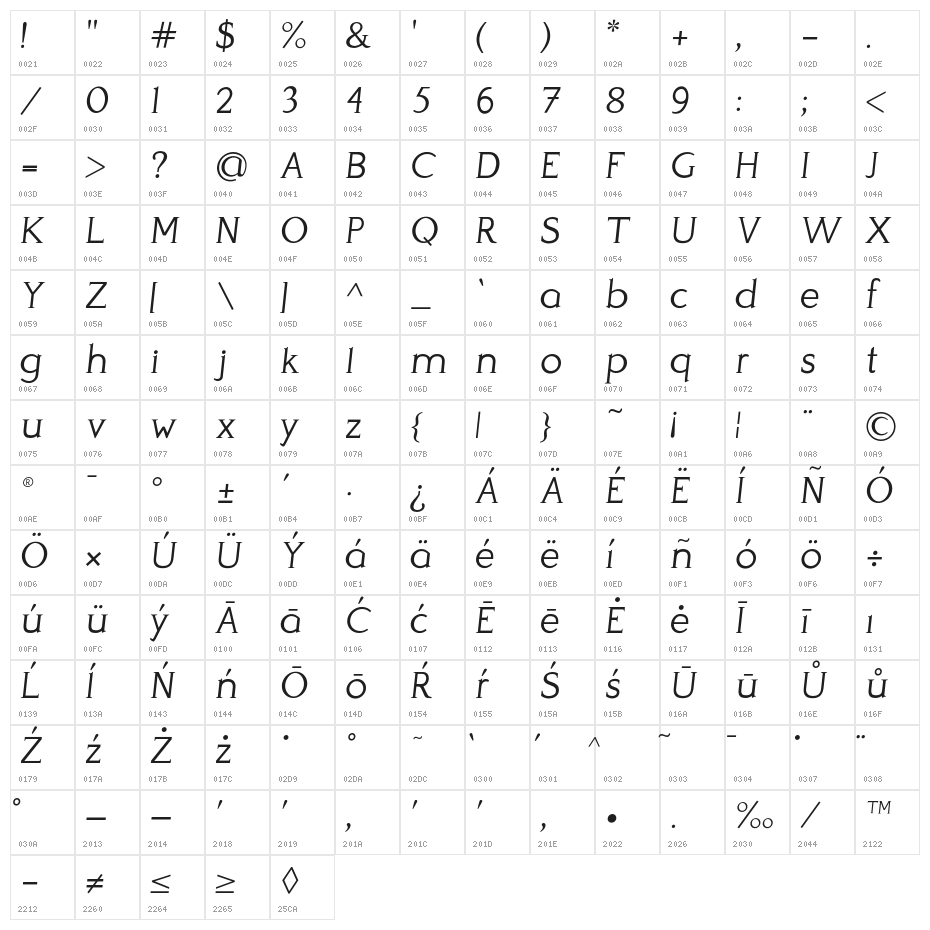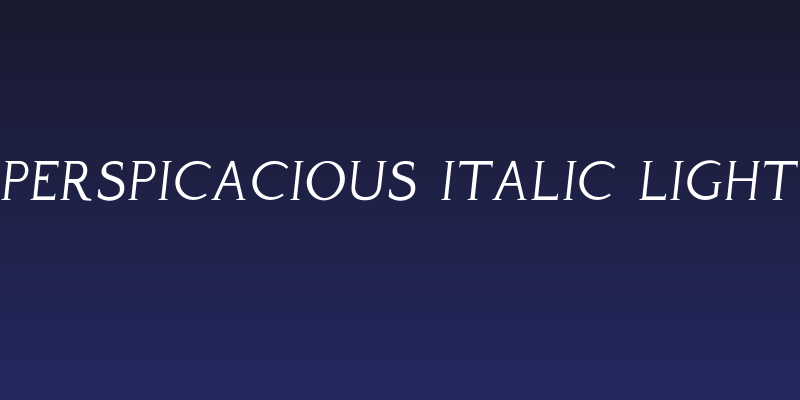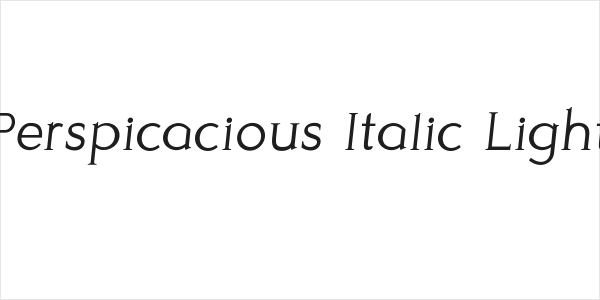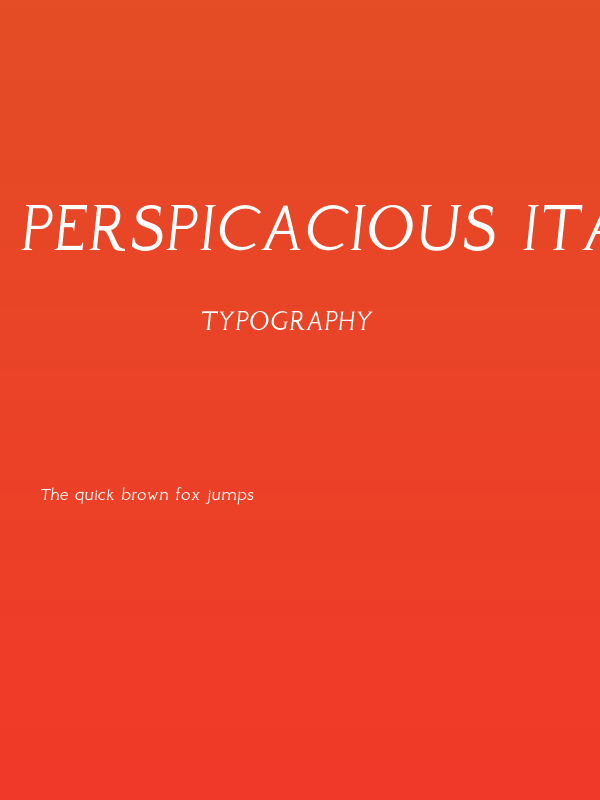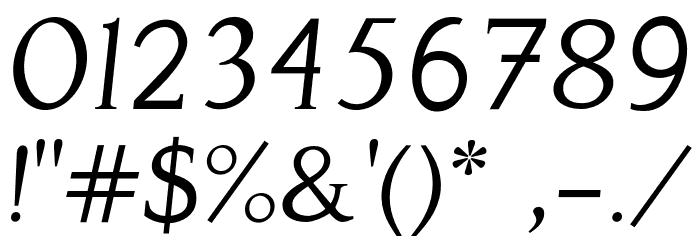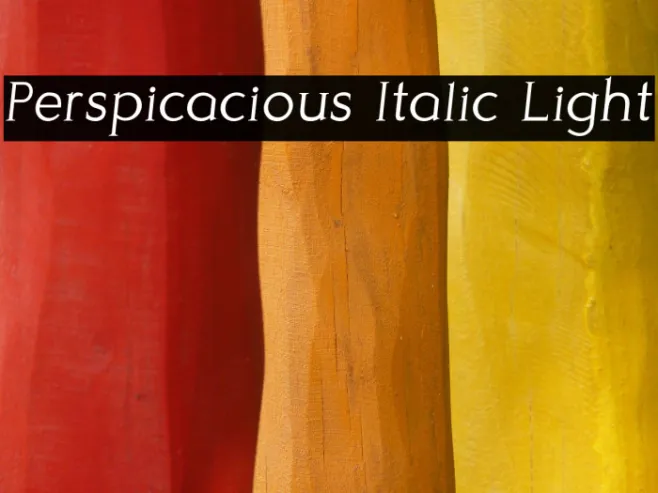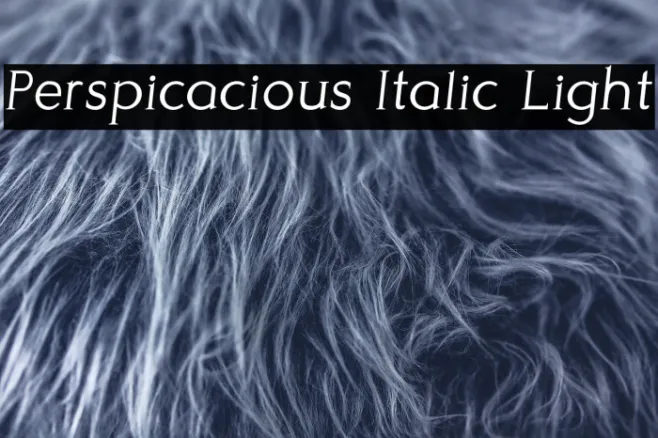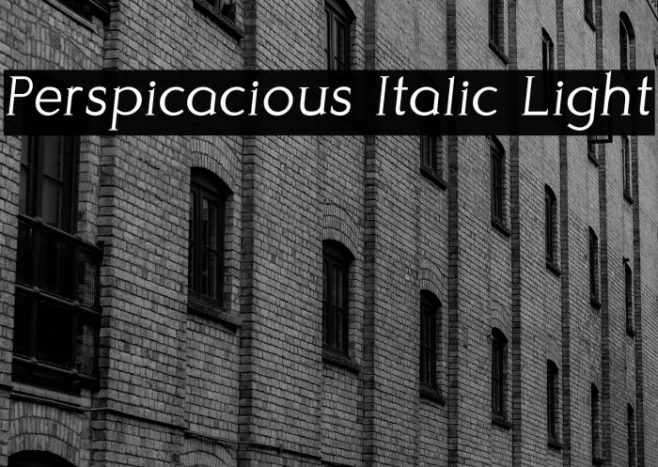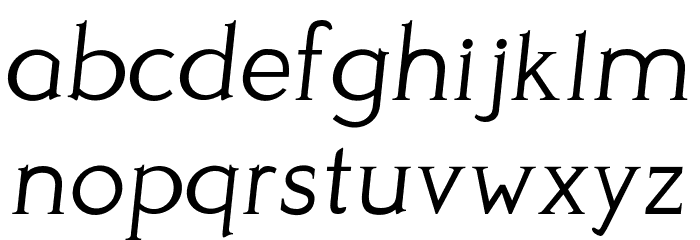
Perspicacious Italic Light Font
Perspicacious Italic Light Description
This font features a refined and elegant design with a slight italic slant, giving it a sophisticated and dynamic appearance. The characters are crafted with a light weight, providing a delicate and airy feel. The serifs are subtle, adding a touch of classic elegance without overpowering the overall modern aesthetic. The font maintains a consistent stroke width, ensuring readability and clarity across all characters. Its design is both versatile and stylish, making it suitable for a variety of applications where a touch of elegance is desired.
| Proposed Projects | Ideal for use in fashion magazines, luxury branding, wedding invitations, and elegant editorial designs. |